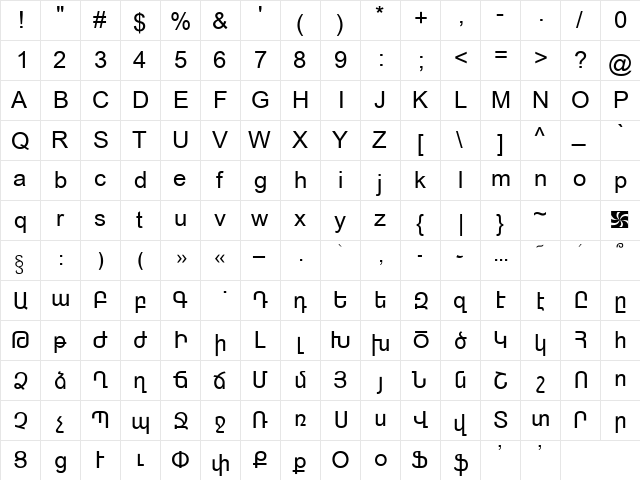
Dallak Helv Regular
Design Context for Dallak Helv Typeface
Dallak Helv is a composed and adaptable typeface that performs quietly and consistently across a wide range of design contexts.